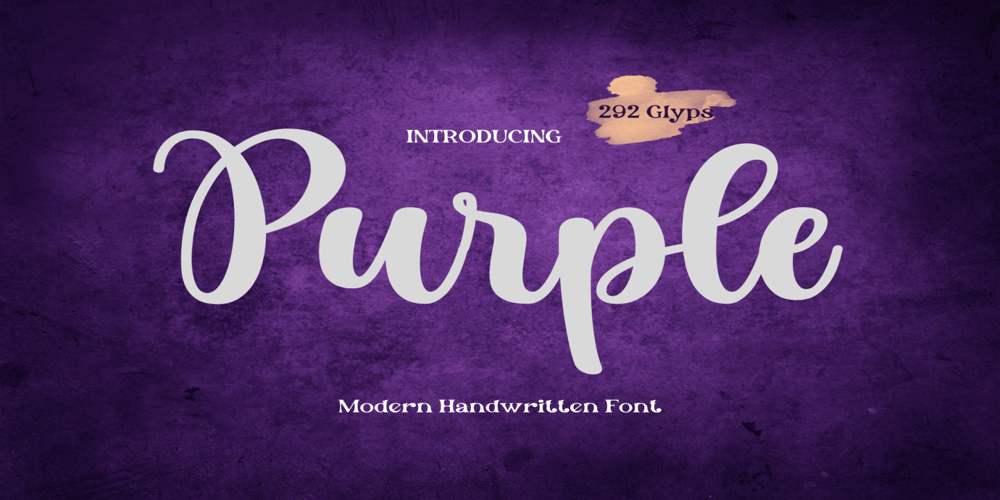
Purple Font Family was designed by Karen Ackoff and published by Adita Fonts. Purple contains 1 styles and family package options. About the ProductPurple is a lovely and delicate script font that exudes elegance and class. This font was particularly crafted for those who need a beautiful and refreshing look to their designs.